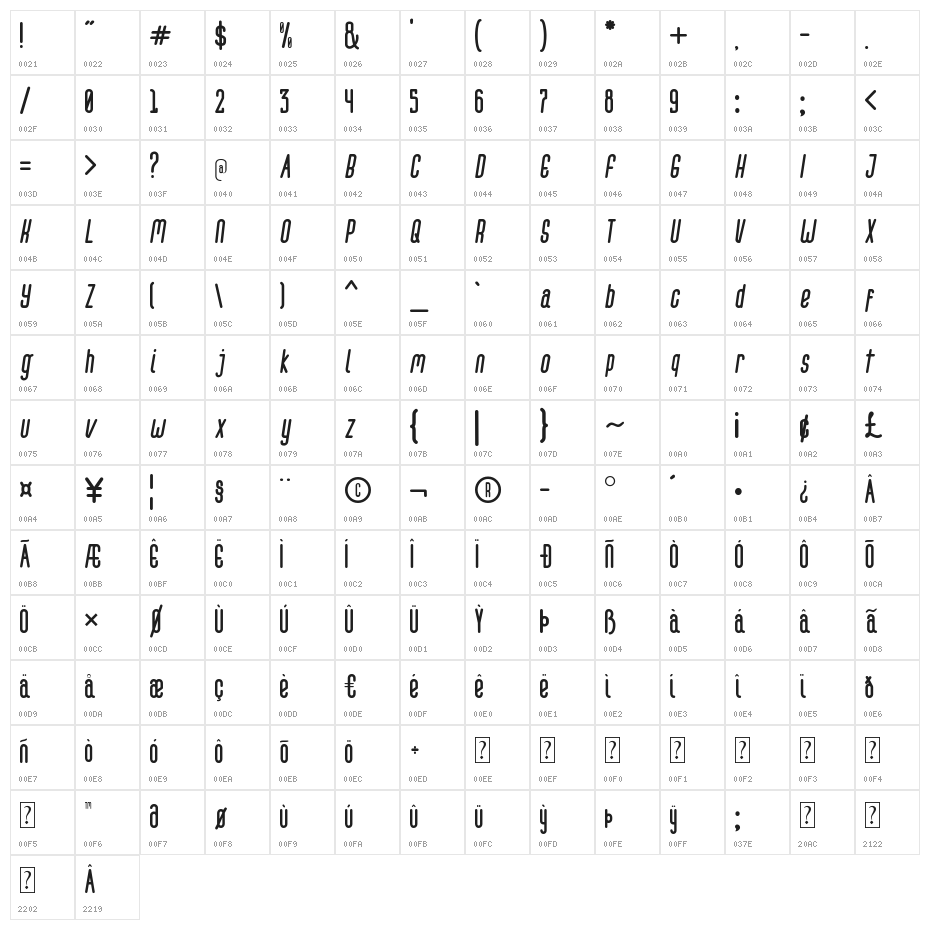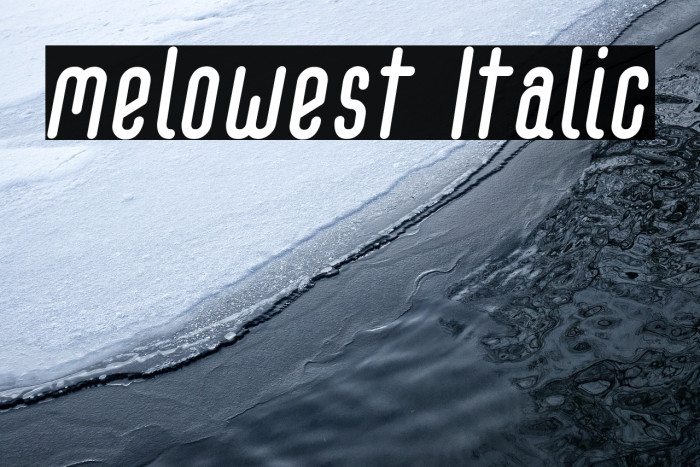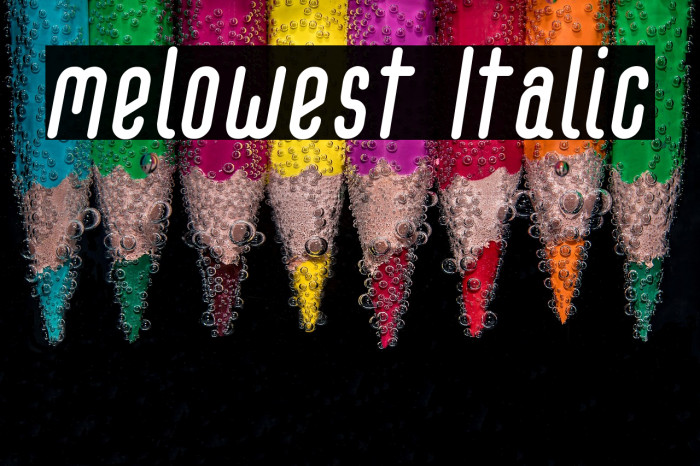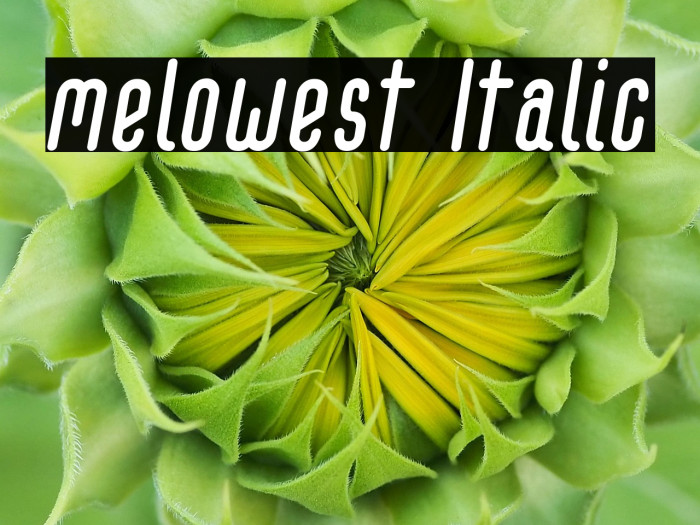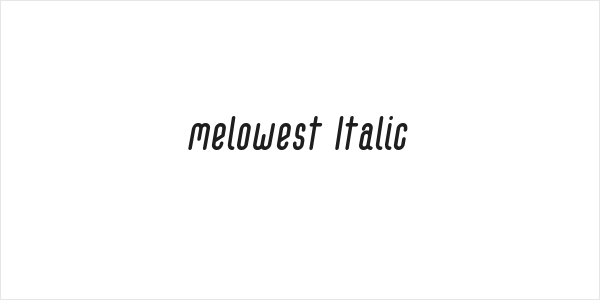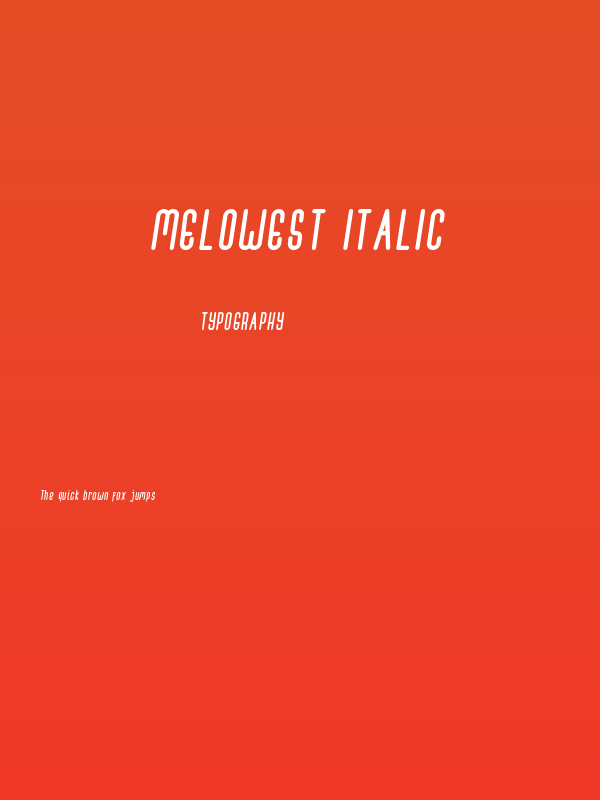
melowest Italic Font
melowest Italic Description
This font features a modern, sleek design with a slight italic slant, giving it a dynamic and forward-moving appearance. The characters are elongated with rounded edges, providing a smooth and approachable feel. The uppercase and lowercase letters maintain a consistent style, with the lowercase letters mirroring the uppercase in form but with a more compact size. The numerals are clear and easy to read, matching the overall aesthetic of the letters. Special characters are well-integrated, maintaining the font's cohesive look. The font's design is both stylish and functional, suitable for a variety of applications.